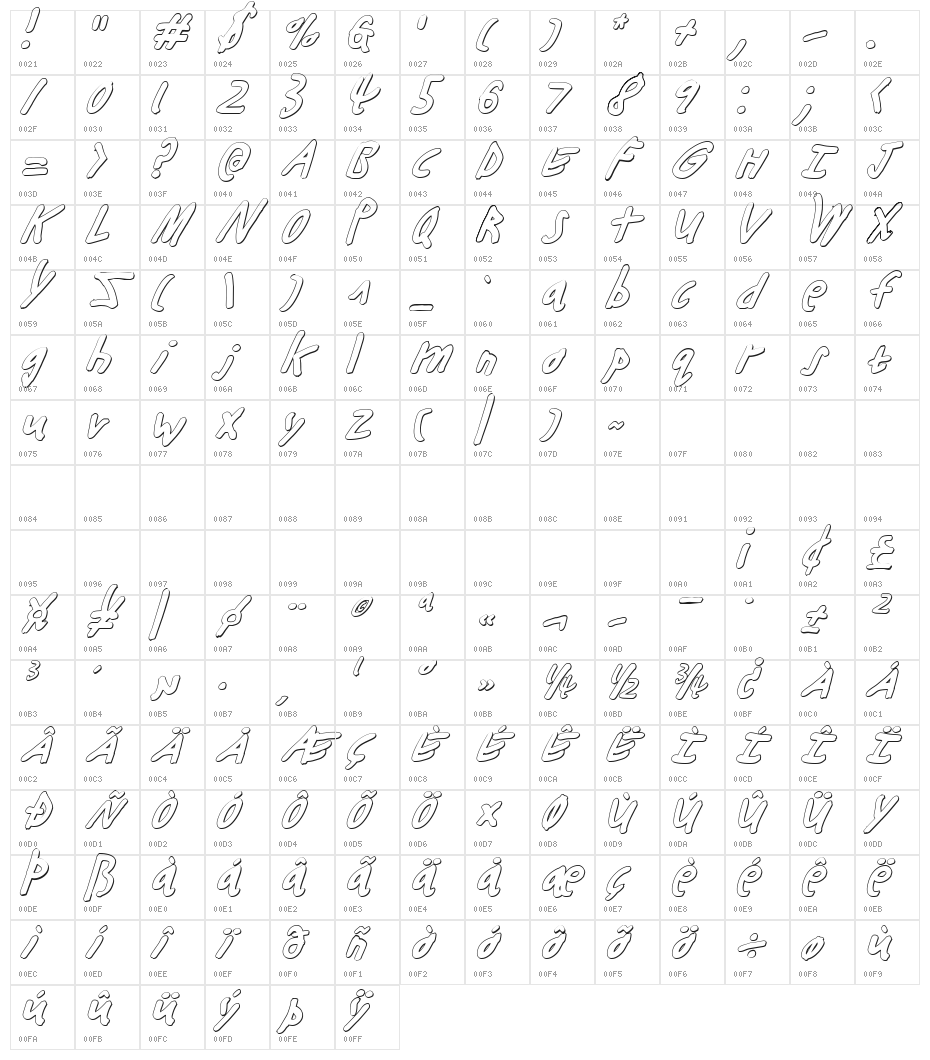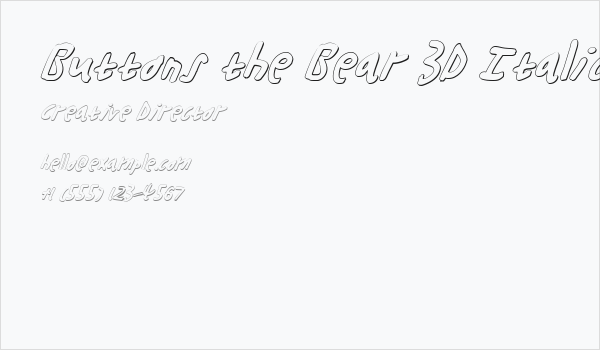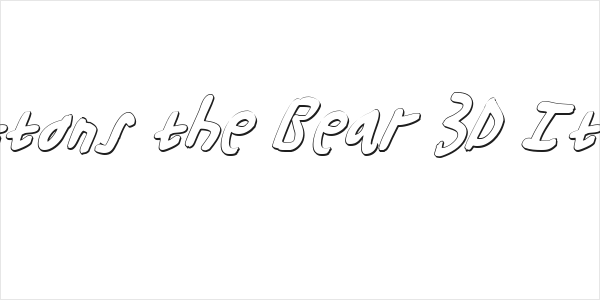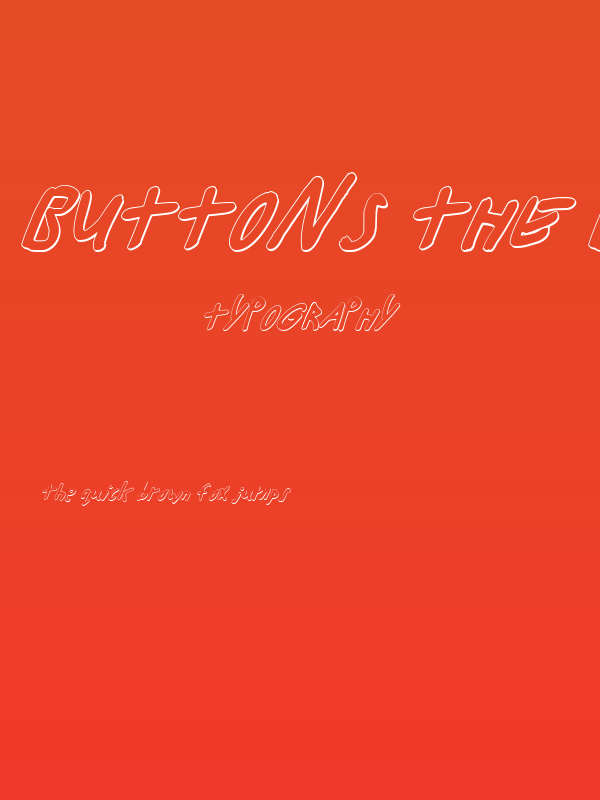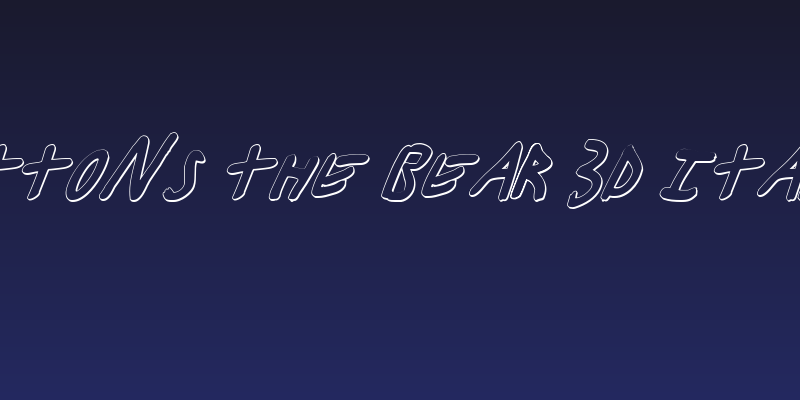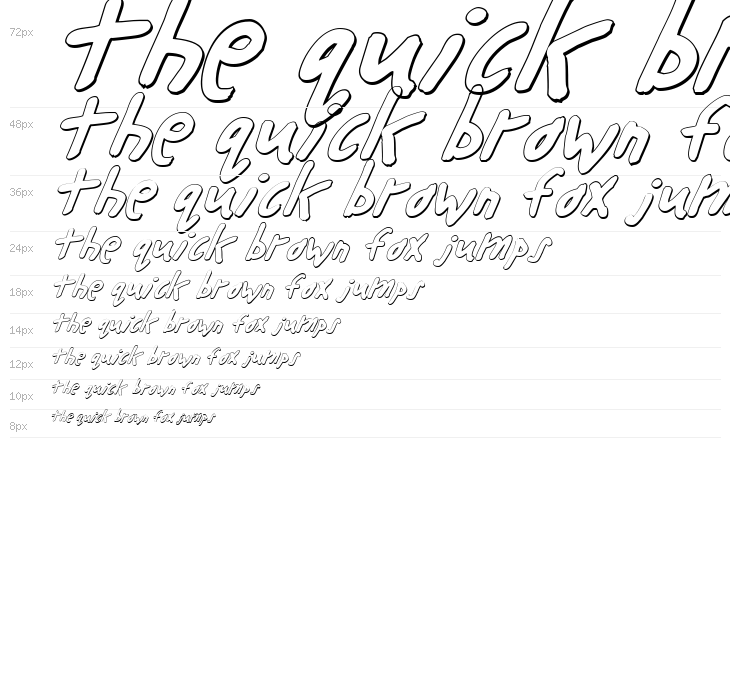
Buttons the Bear 3D Italic Font
Buttons the Bear 3D Italic Description
This font features a playful and dynamic style with a 3D italic effect, giving it a sense of movement and depth. The characters are bold and slightly slanted, with a hand-drawn appearance that adds a whimsical touch. The uppercase and lowercase letters maintain consistency in their slant and thickness, while the numbers and special characters follow the same playful design. The font's outline effect enhances its 3D look, making it stand out in any design. It's perfect for projects that require a fun and engaging typeface.
| Proposed Projects | Ideal for children's book covers, playful branding, greeting cards, and creative posters. |